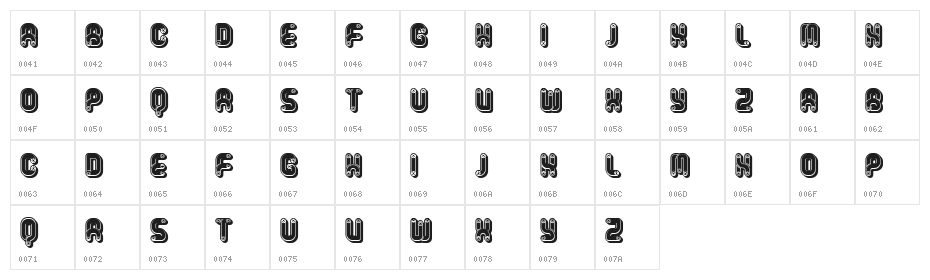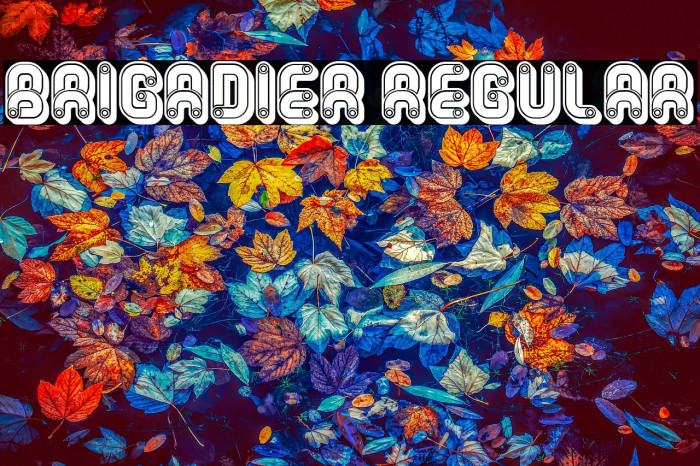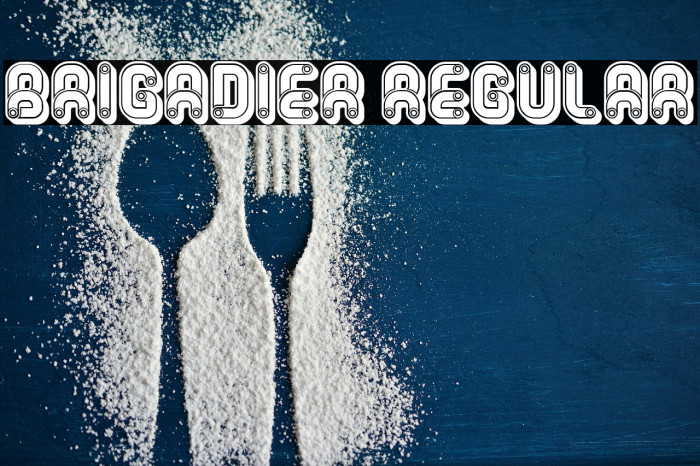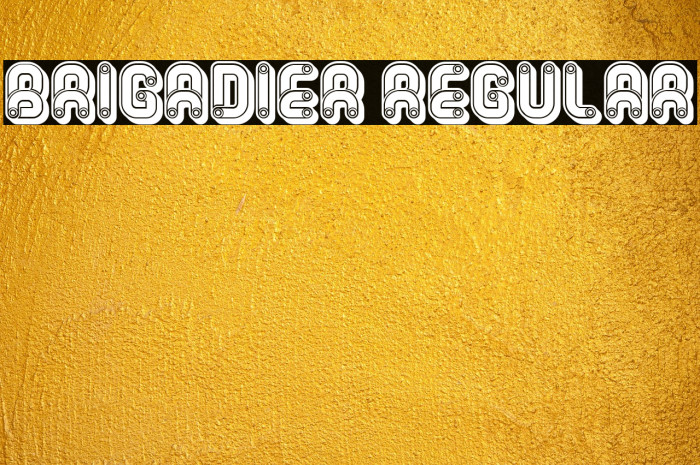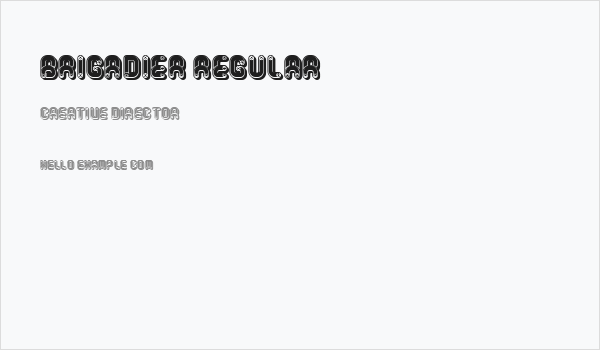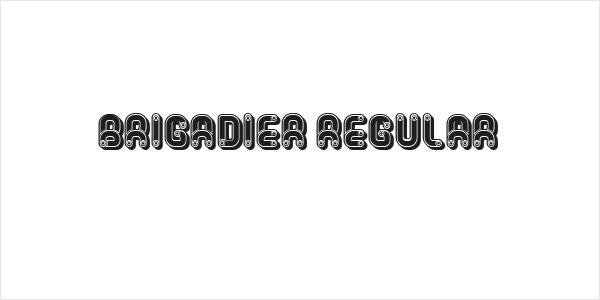
Brigadier Regular Font
Brigadier Regular Description
This font features a bold and decorative style with a unique, mechanical aesthetic. Each character is designed with intricate details, resembling gears or circuit patterns, giving it an industrial and futuristic feel. The letters are uniformly bold, with rounded edges and consistent line thickness, creating a cohesive and striking appearance. The font's design is highly stylized, making it ideal for projects that require a strong visual impact. Its distinctiveness makes it suitable for branding, posters, and any creative work that seeks to stand out.
| Overall Style | Futuristic, Industrial |
| Proposed Projects | Ideal for branding, posters, album covers, and any creative projects requiring a strong visual impact. |